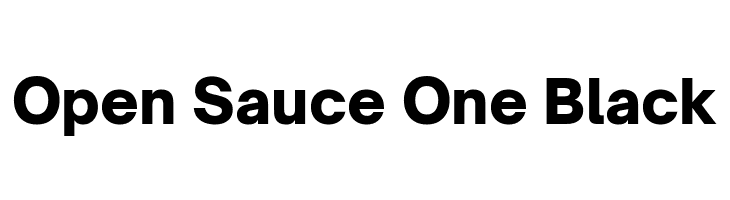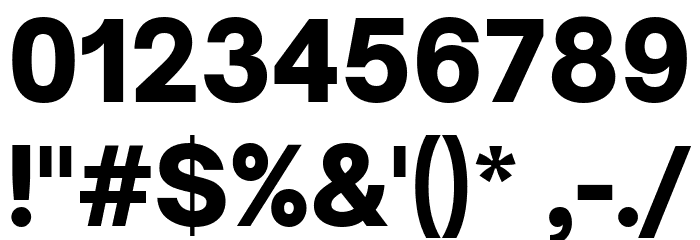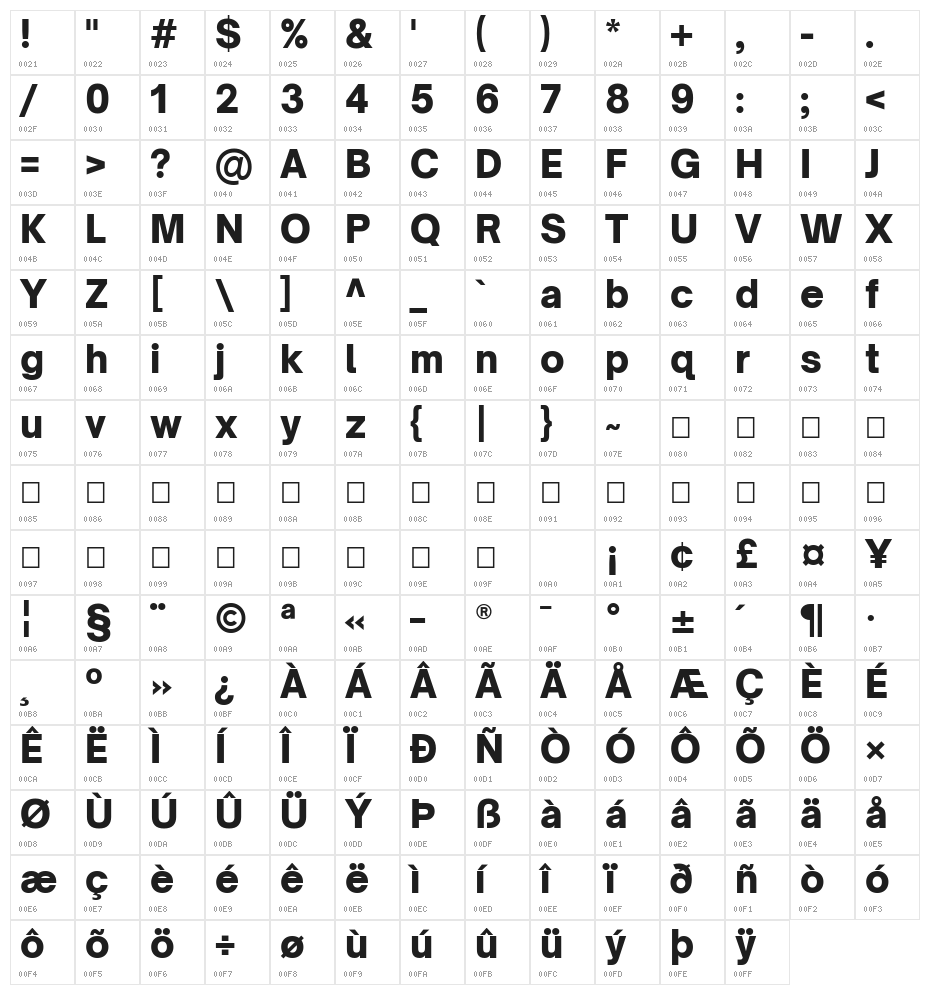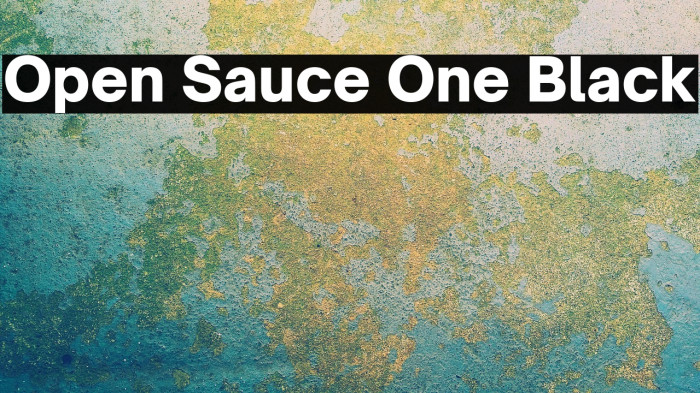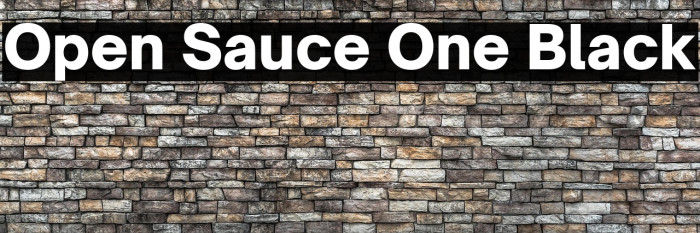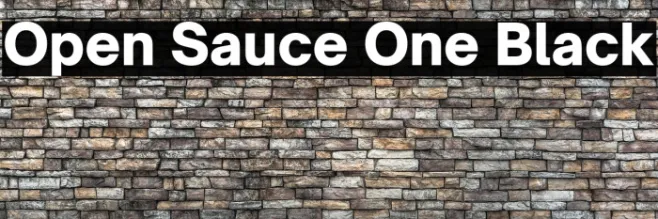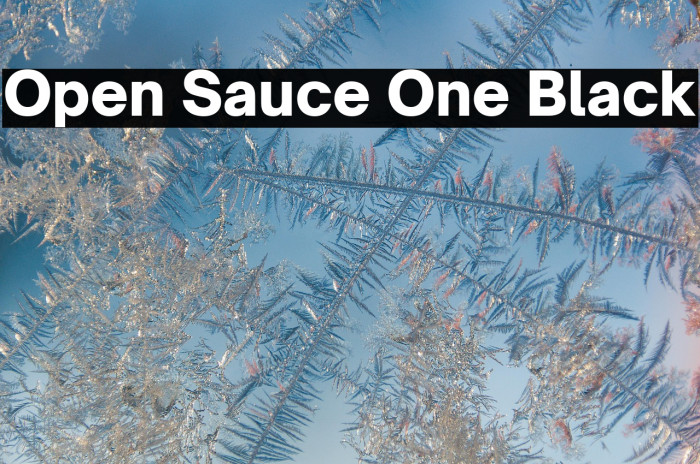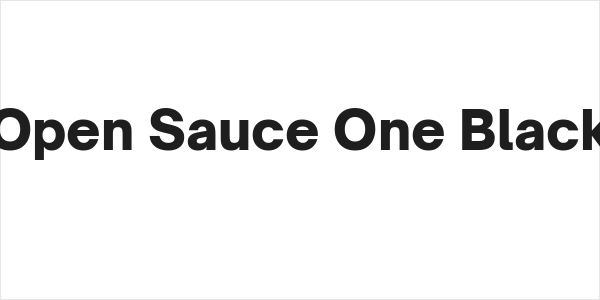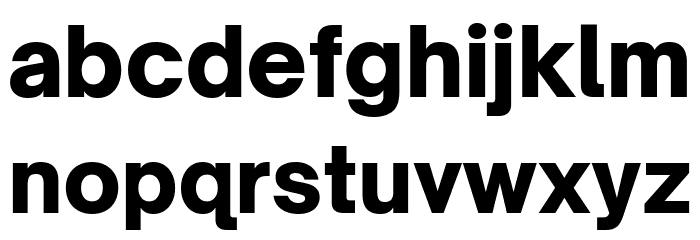
Open Sauce One Black Font
Open Sauce One Black Description
This font features a bold and modern sans-serif style with clean lines and a strong presence. The uppercase and lowercase letters are well-proportioned, offering a harmonious balance that enhances readability. The numerals are clear and distinct, making them suitable for various applications. Special characters are included, maintaining the font's cohesive design. The overall appearance is robust and impactful, making it ideal for attention-grabbing headlines and branding purposes. Its simplicity and clarity make it versatile for both digital and print media.
| Proposed Projects | Ideal for branding, advertising, headlines, and digital media projects. |